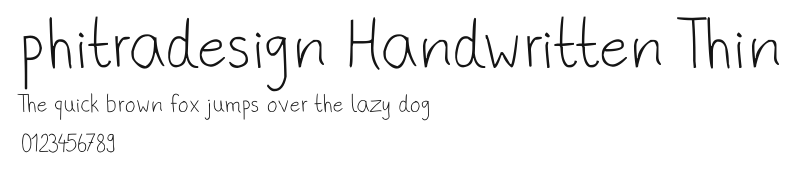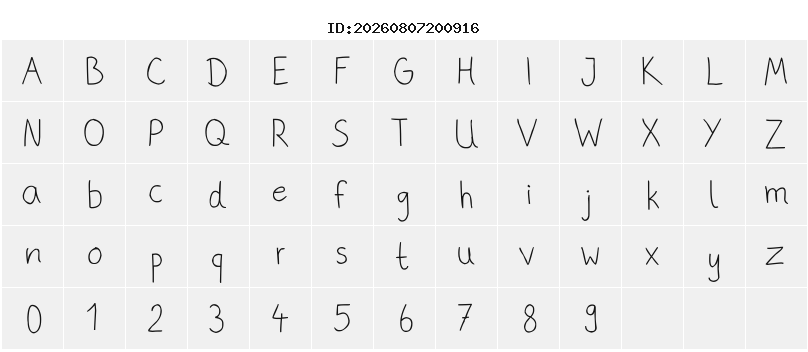
phitradesign Handwritten Thin Preview
• Font Name: phitradesign Handwritten Thin
• Full Font Name: phitradesign Handwritten Thin
• Description: This font was created using the online font generation service from yourfonts.com
About phitradesign Handwritten Thin.ttf
phitradesign Handwritten Thin.ttf is a modern, elegant sans-serif font designed for ultimate readability and visual harmony. Perfect for branding, headlines, web design, and print materials.